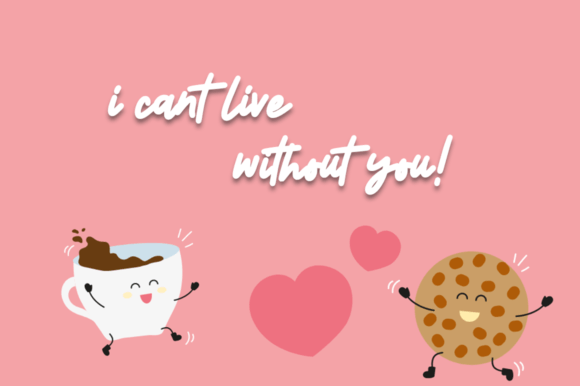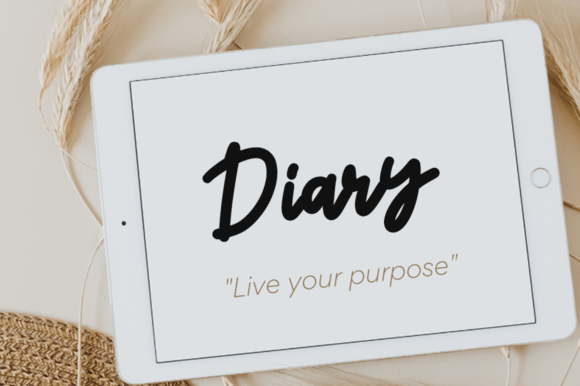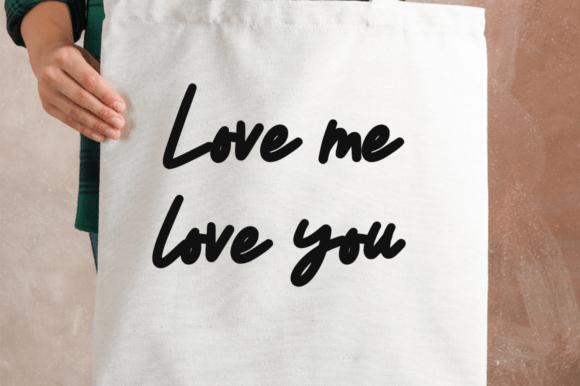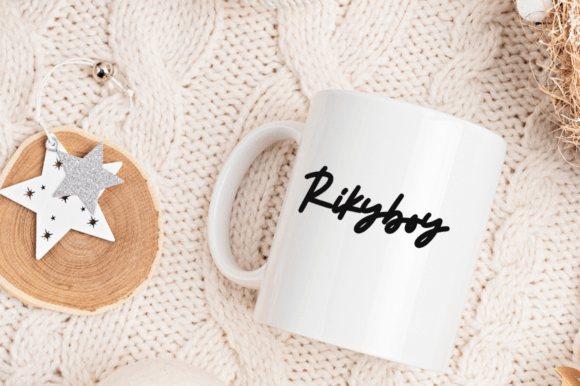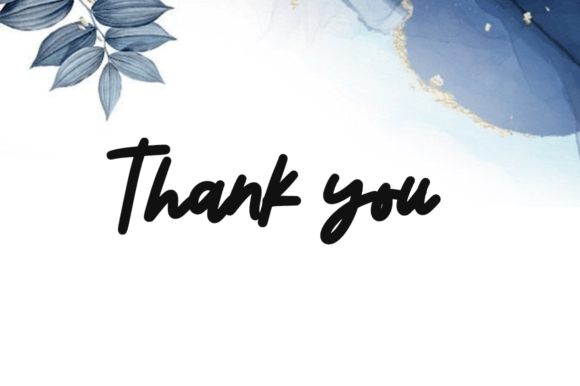
Biscut Font: The Perfect Choice for Whimsical Designs
Introducing Biscut, an enchanting script font that is steeped in charm and caprice. It’s distinguished by its playful curves and inviting character that inspire both harmony and joy. A seamless choice for illustrative children’s literature, cheerful celebration invites or any design endeavor aiming to emanate heartiness and joviality.
The Charm of Biscut Font
Biscut font is a unique and captivating script font that is sure to add a touch of magic to any design project. Its playful curves and inviting character make it perfect for designs that require a friendly and approachable tone. The font’s distinctive features, such as its flowing connections and whimsical swashes, give it a lively and energetic feel that is sure to capture the attention of your audience.
Perfect for Illustrative Children’s Literature
Biscut font is an excellent choice for illustrative children’s literature, such as picture books, storybooks, and early readers. Its playful and imaginative feel makes it perfect for bringing characters and stories to life. The font’s clear and legible design ensures that young readers can easily follow along, while its whimsical charm adds an extra layer of fun and engagement.
Celebration Invites and Party Designs
Biscut font is also ideal for designing cheerful celebration invites, party decorations, and other festive materials. Its joyful and lively feel makes it perfect for creating designs that evoke a sense of excitement and celebration. Whether you’re designing invitations for a birthday party, baby shower, or wedding, Biscut font is sure to add a touch of whimsy and charm to your designs.
Design Endeavors with Heartiness and Joviality
Biscut font is a versatile font that can be used in a variety of design endeavors that aim to emanate heartiness and joviality. Its playful and inviting character makes it perfect for designs that require a friendly and approachable tone, such as food packaging, branding, and advertising. The font’s unique features and whimsical charm add a touch of personality to any design, making it stand out from the crowd.
Key Features of Biscut Font
- Playful curves and inviting character
- Flowing connections and whimsical swashes
- Clear and legible design
- Perfect for illustrative children’s literature and celebration invites
- Ideal for designs that require a friendly and approachable tone
- Unique features and whimsical charm add personality to any design
Biscut font is a charming and captivating script font that is perfect for designers and crafters looking to add a touch of whimsy and personality to their design projects. Its playful curves and inviting character make it ideal for illustrative children’s literature, celebration invites, and any design endeavor aiming to emanate heartiness and joviality. With its unique features and clear design, Biscut font is sure to become a favorite in your design toolkit.